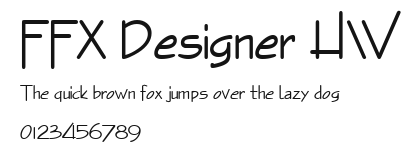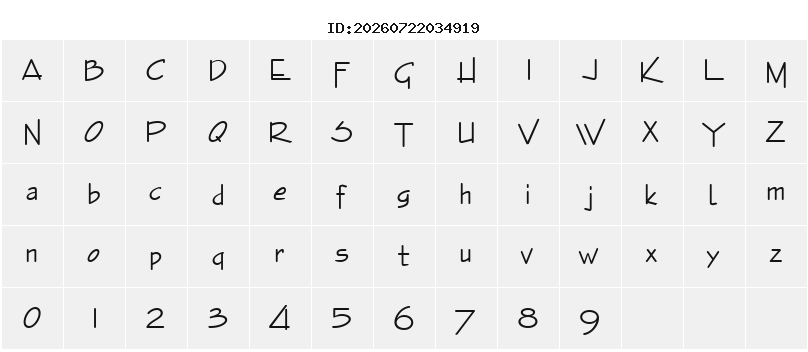
FFX Designer HW Preview
• Font Name: FFX Designer HW
About FFX Designer HW.ttf
FFX Designer HW.ttf is a modern, elegant sans-serif font designed for ultimate readability and visual harmony. Perfect for branding, headlines, web design, and print materials.